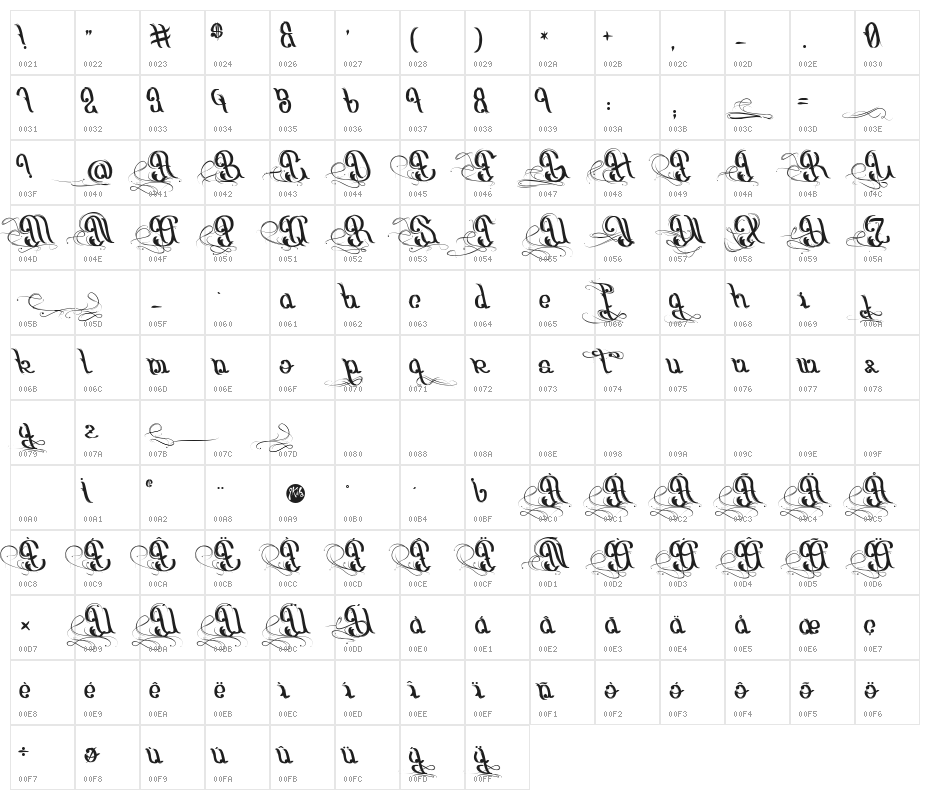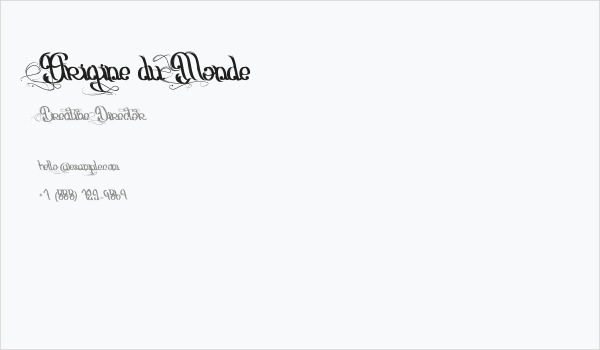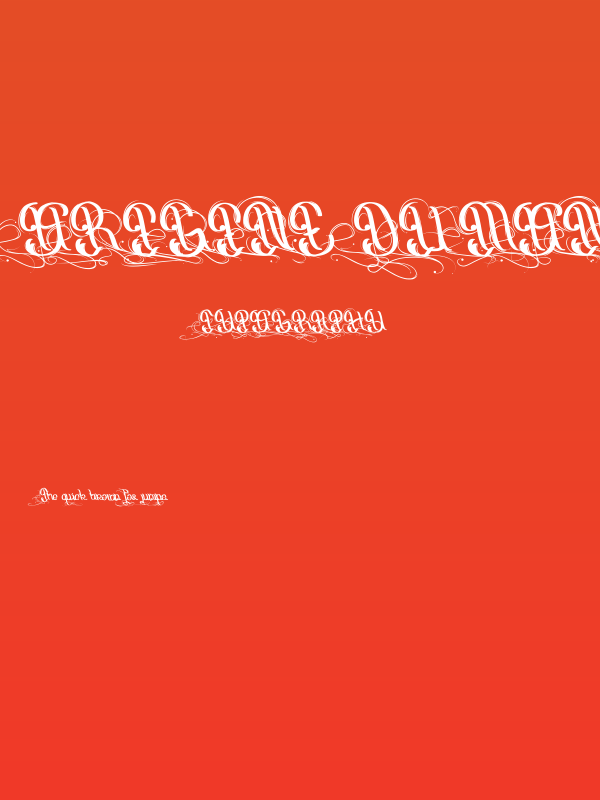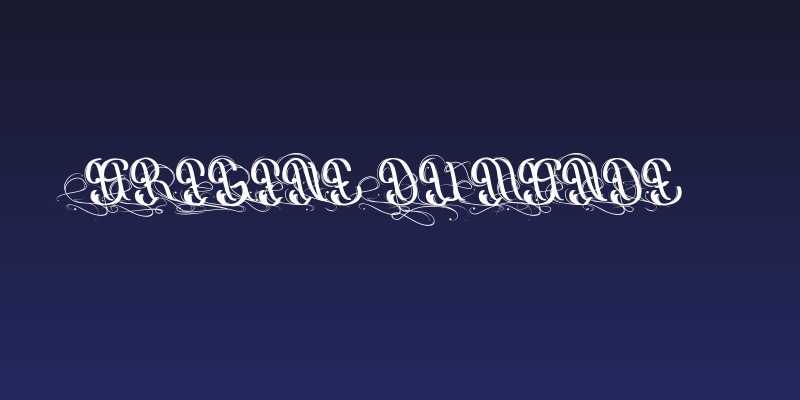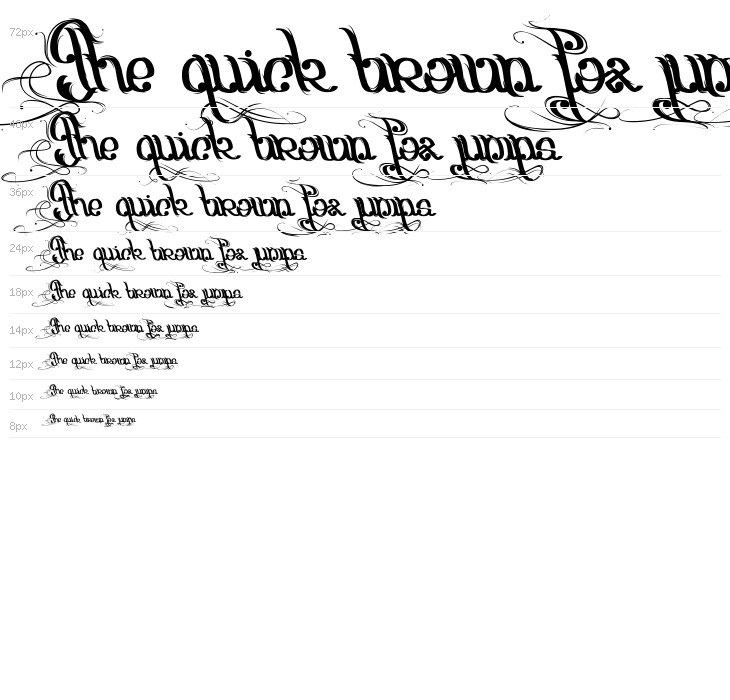
Origine du Monde Font
Origine du Monde Description
This font is an elaborate and decorative script style, characterized by its intricate swirls and flourishes that extend from each letter. The uppercase letters are particularly ornate, with embellishments that create a sense of elegance and sophistication. The lowercase letters maintain a consistent flow, complementing the uppercase with their own subtle curves. Numbers and special characters are designed with the same attention to detail, ensuring a cohesive look across all elements. This font exudes a sense of luxury and formality, making it suitable for projects that require a touch of grandeur.
| Proposed Projects | Ideal for wedding invitations, luxury branding, high-end product packaging, and decorative headings. |